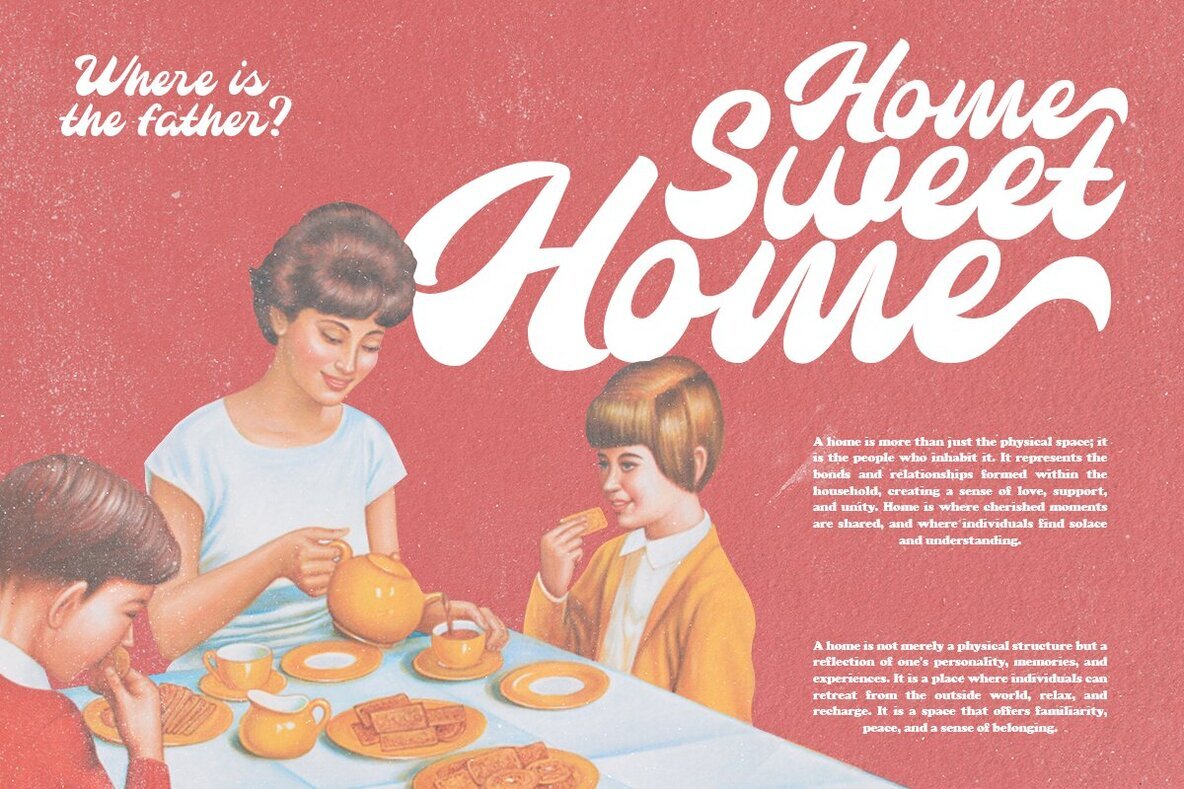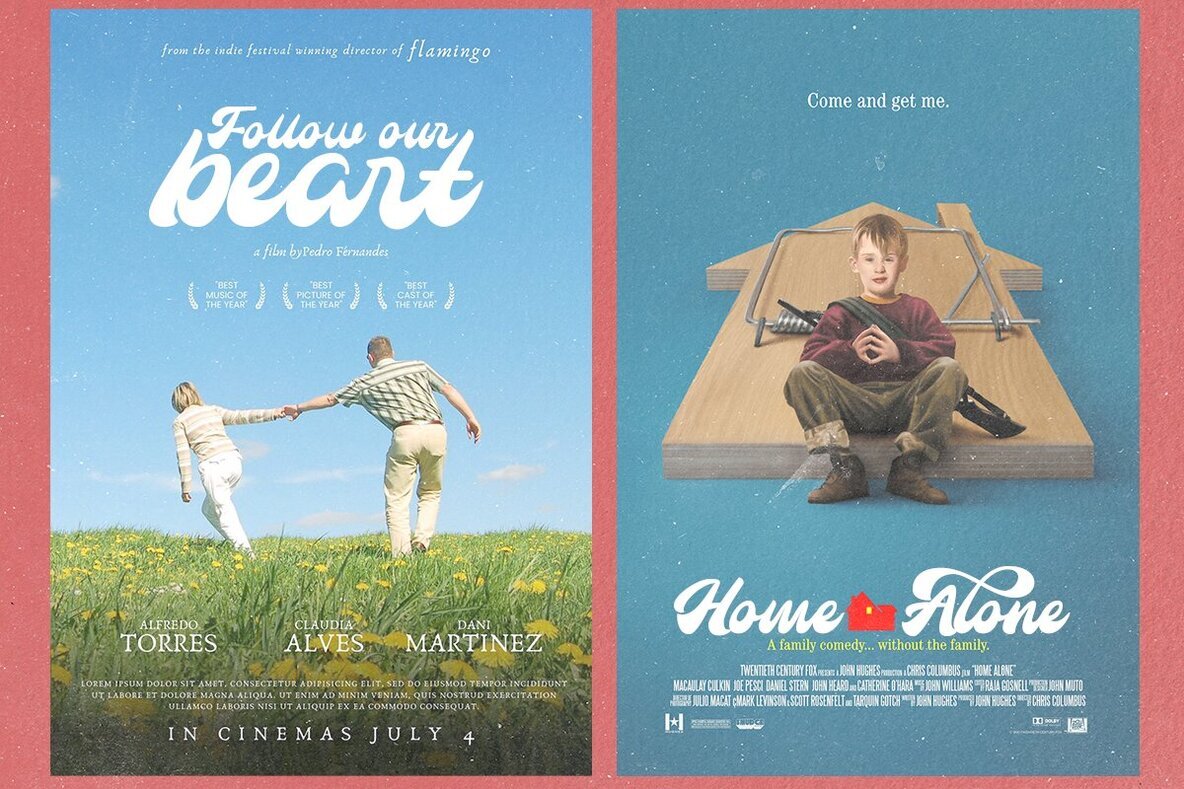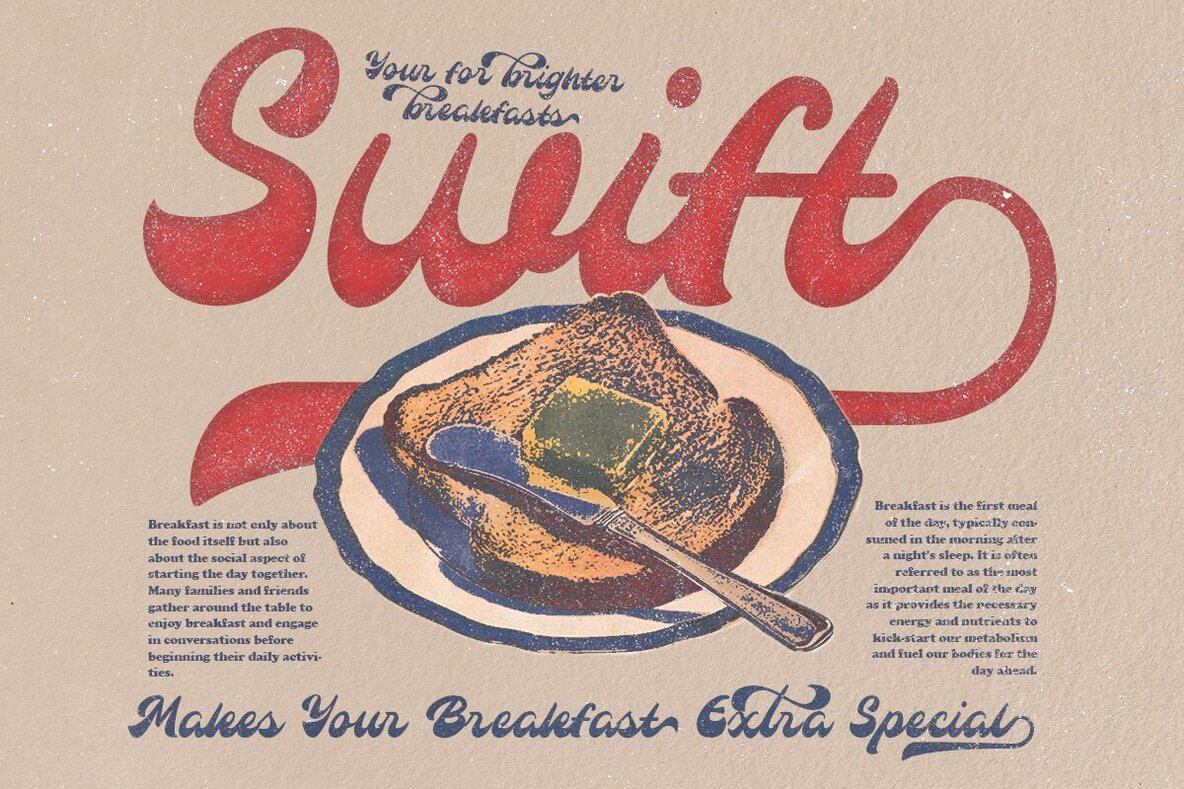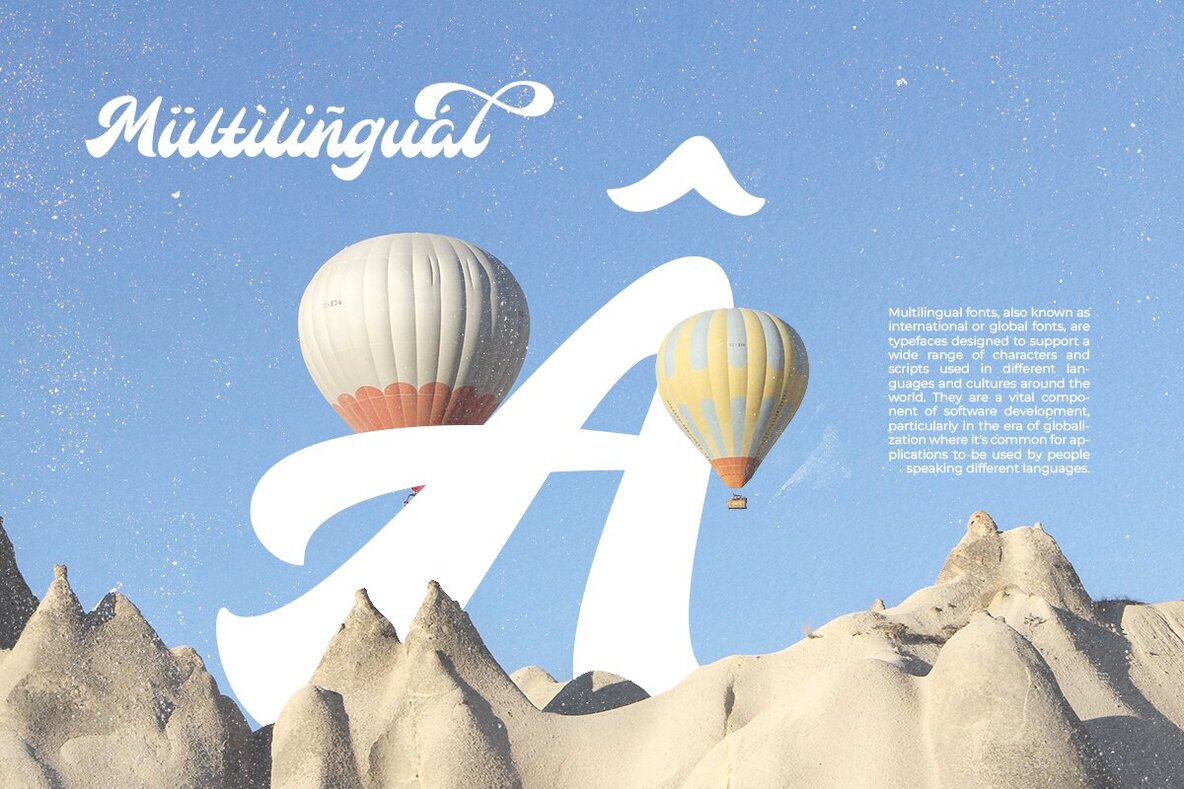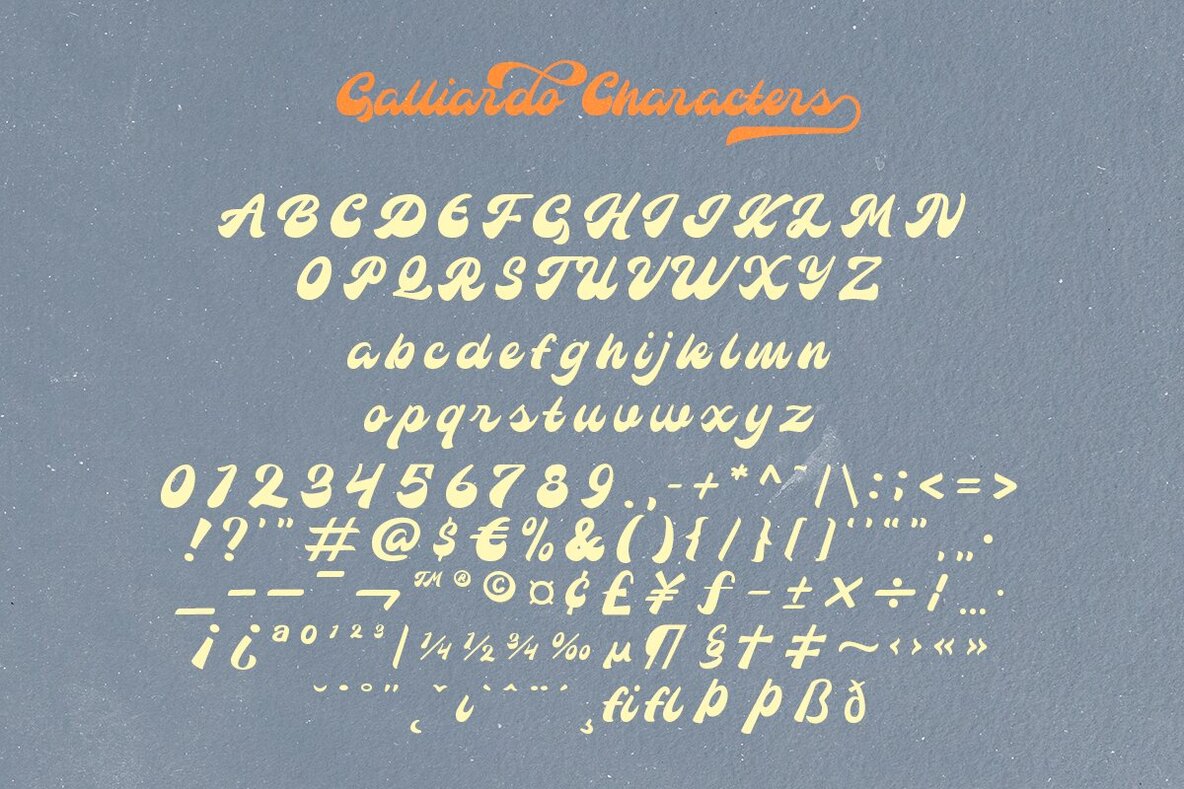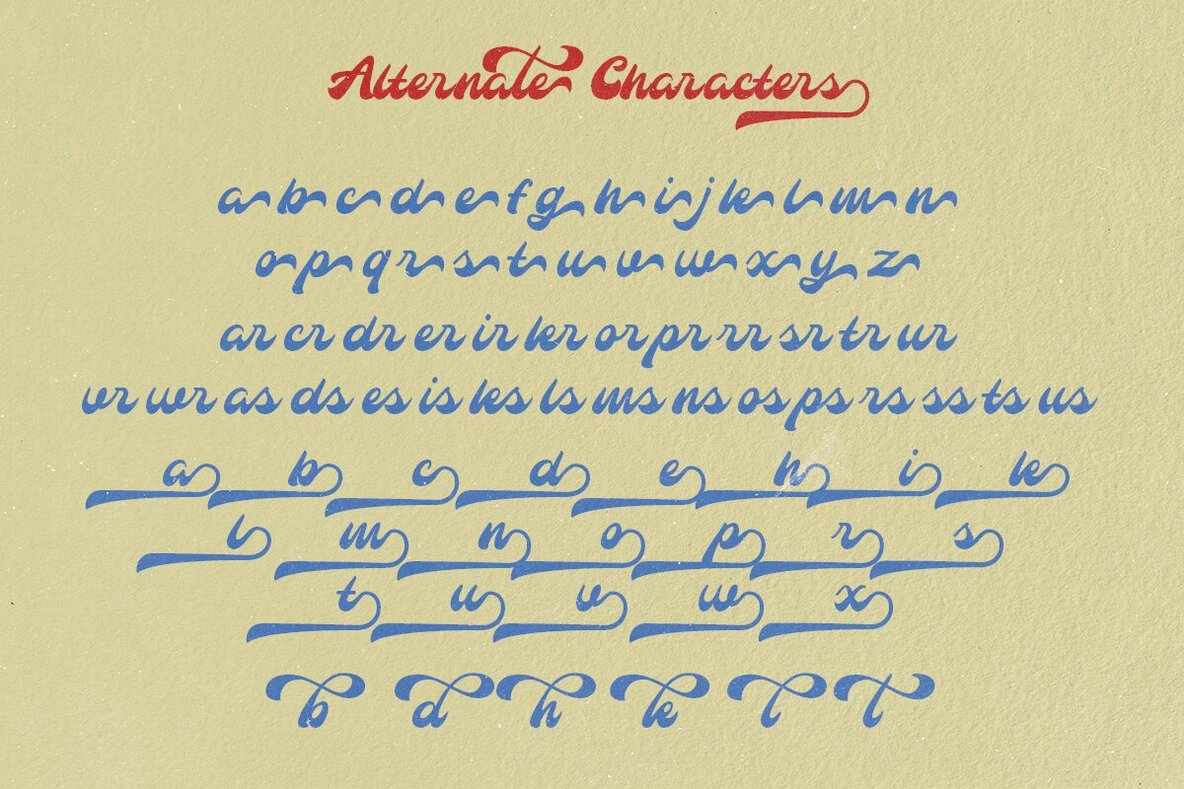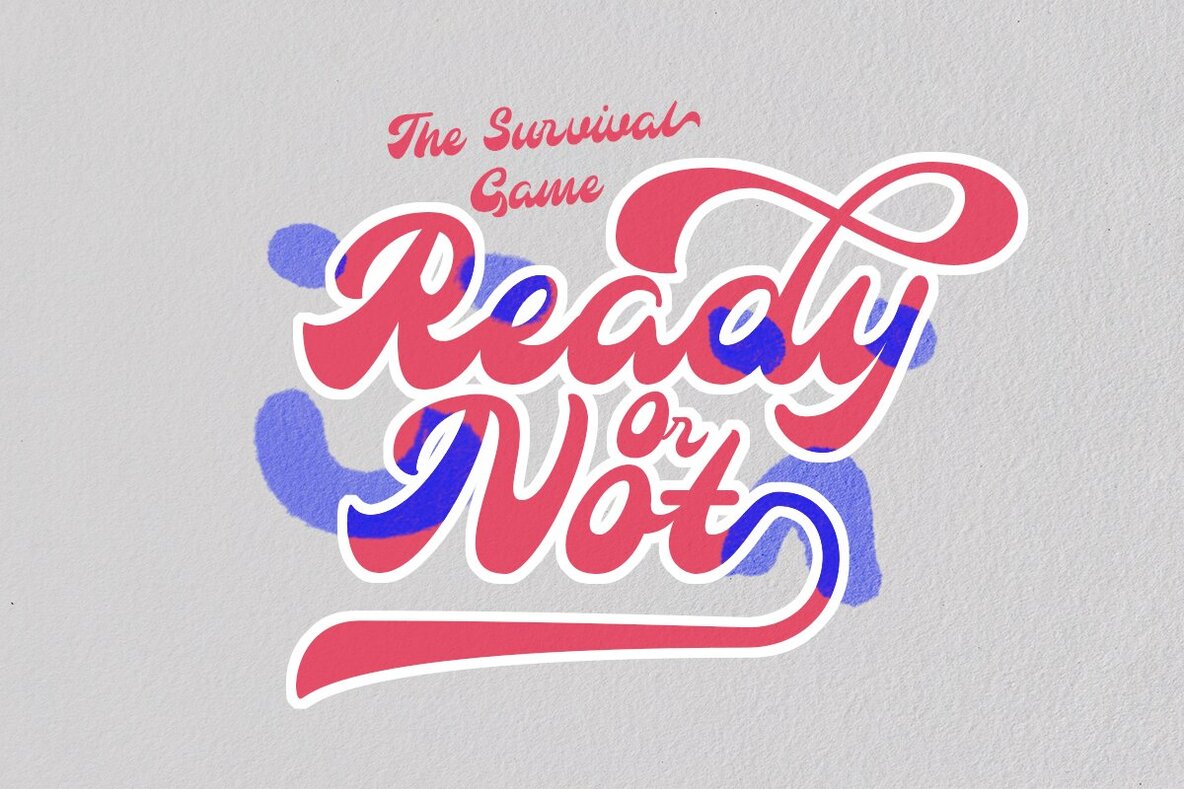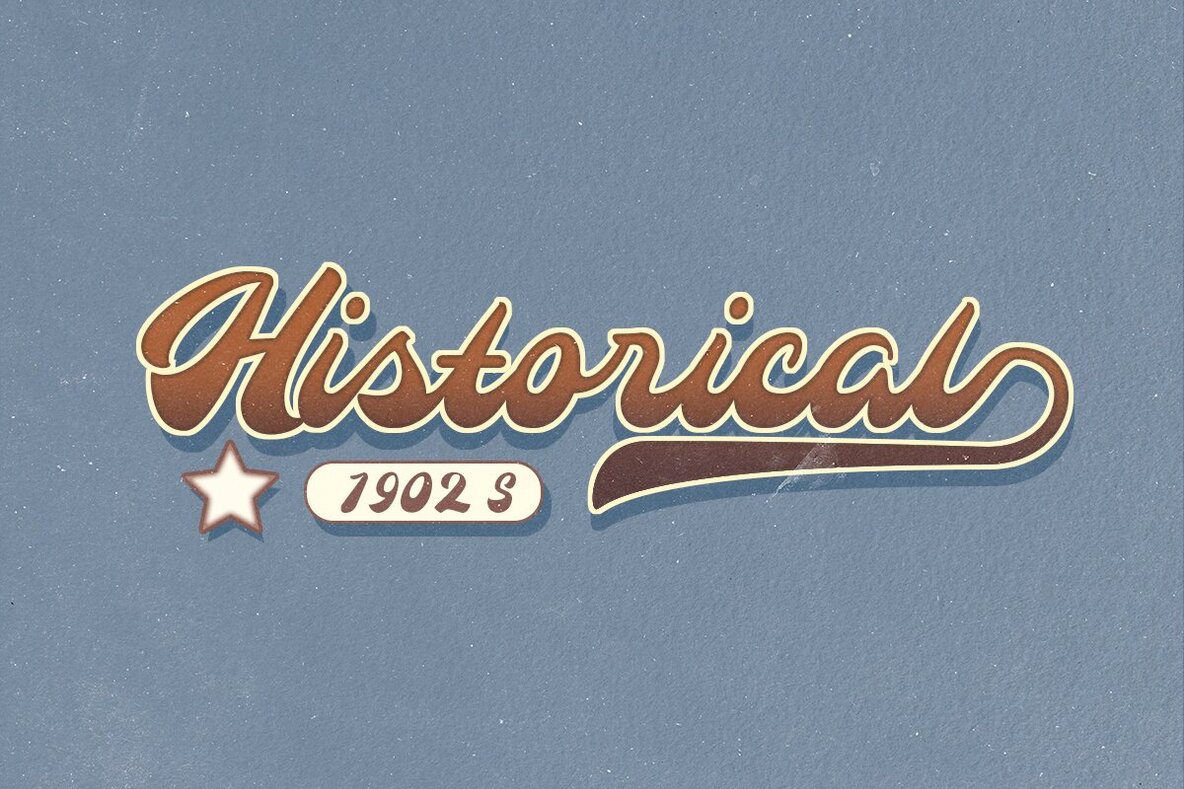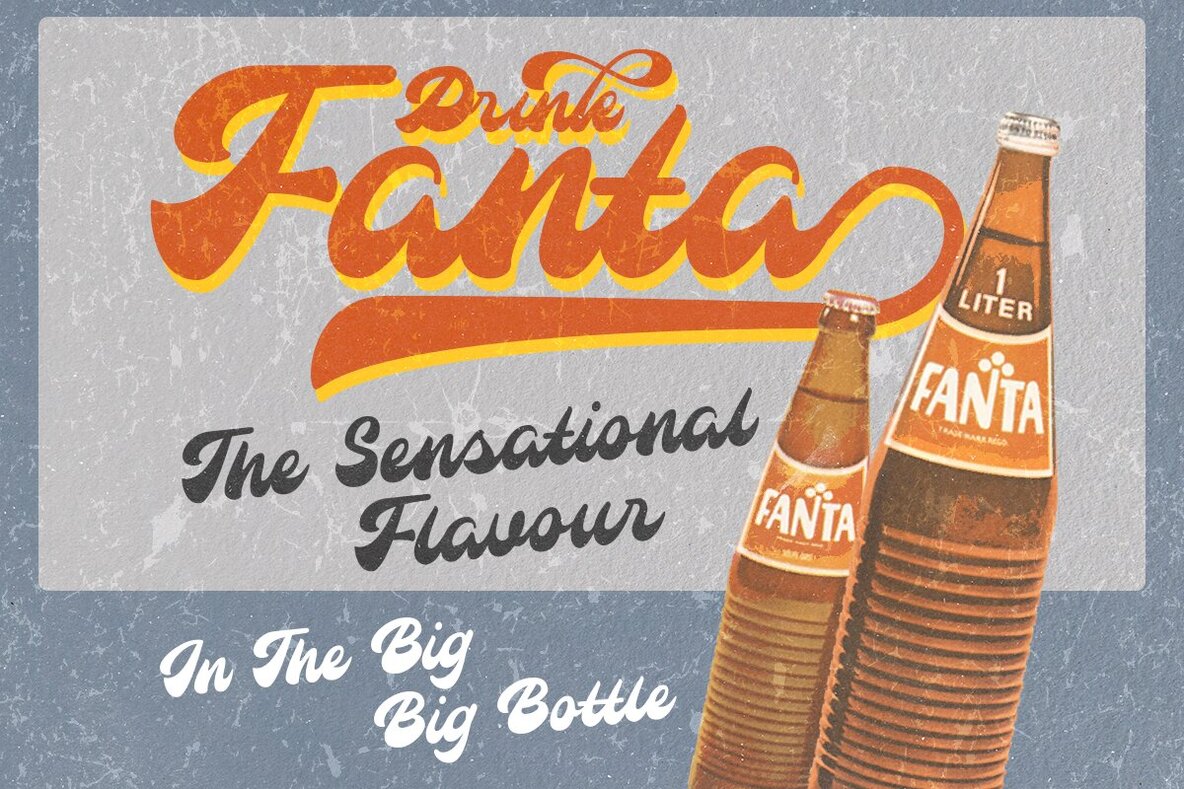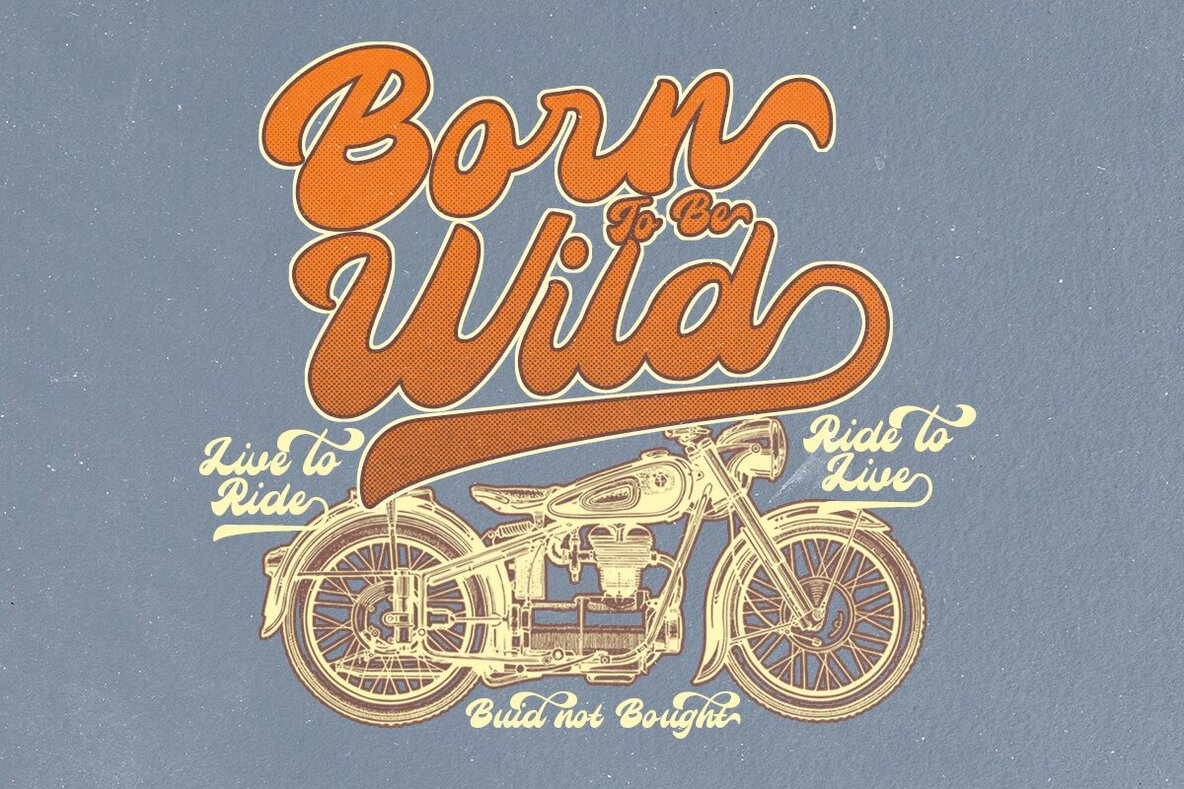
Galliardo Font
Galliardo Regular
Introducing Galliardo - a versatile script font that seamlessly blends the chic elegance of the art deco era with the retro appeal of the vibrant 70s. Perfect for adding a touch of timeless charm to your designs. Galliardo is an ideal choice for a variety of projects including branding, signage, packaging, invitations, labels, logos, and more. Its distinct style ensures a memorable visual experience for any advertising purpose. Infuse your design projects with a fun and playful edge using Galliardo!Galliardo: Chic Art Deco and Retro Script Fusion